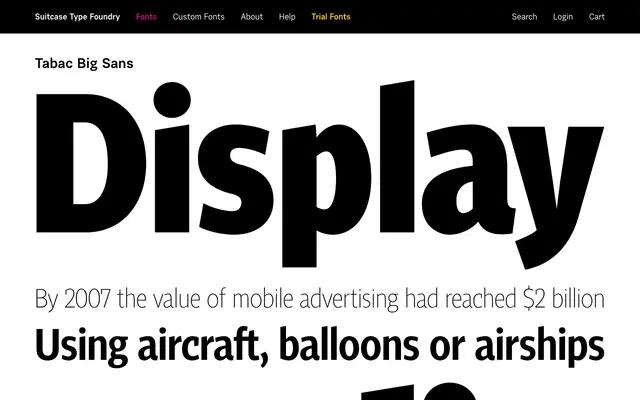
Tabac Big Sans
A display-oriented sans-serif drawn as part of Suitcase Type Foundry's expansive Tabac superfamily, intended for large-scale setting.
Tabac Big Sans is the sans-serif display branch of the Tabac superfamily, which also spans serif, slab and glam variants. The 'Big' designation positions it for headline and large-size use, differentiating it from the text-oriented Tabac Sans. Sixteen styles sit within the family, making it usable across a broad tonal range within the same extended system.
Part of the broader Tabac superfamily alongside slab and serif variants, Tabac Big Sans sits within a humanist sans tradition, designed for display use at larger sizes as implied by the 'Big' designation.